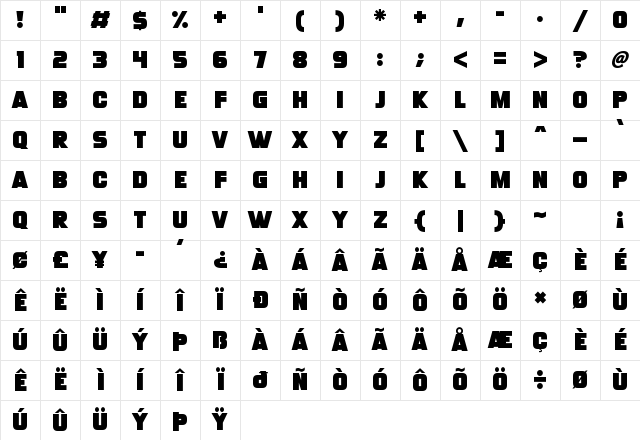
Monster Bites Regular
Design Context for Monster Bites
Monster Bites is a composed and adaptable typeface that performs quietly and consistently across a wide range of design contexts.